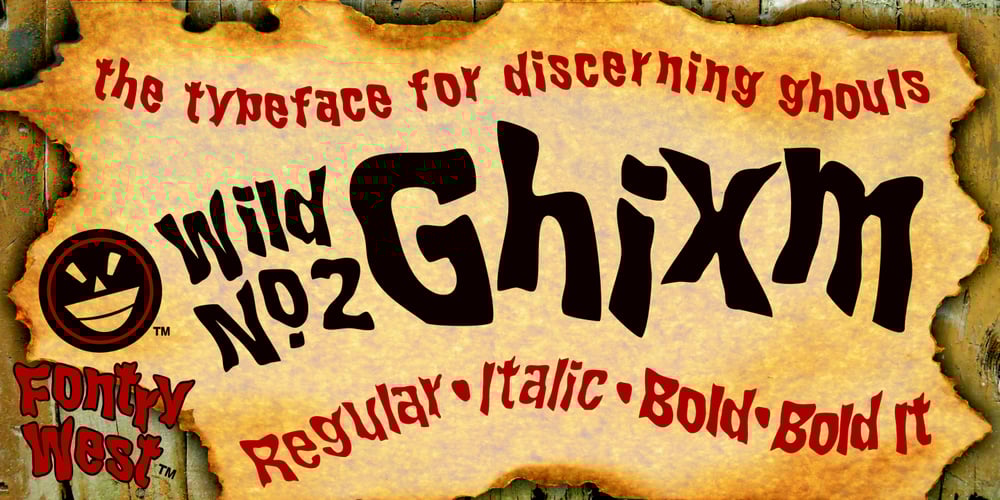
WILD2 Ghixm
WILD2 Ghixm font
WILD2 Ghixm Font Family was designed by Michael Gene Adkins and published by Fontry West. WILD2 Ghixm contains 3 styles and family package options. Accidents happen. Things go where they don’t belong, get changed – remade. Something new crawls out of the murky depths. Ghixm is a retrospective of the horror comics and movie posters of the 1960s and the 1970s. It’s fluid forms harken to watery graves and tentacled unnameable horrors. These twisted shapes are reminiscent of titles that will make your skin crawl. It’s already warped and twisted, so don’t hesitate to abuse it. This face can take it and still deliver its chaotic message.